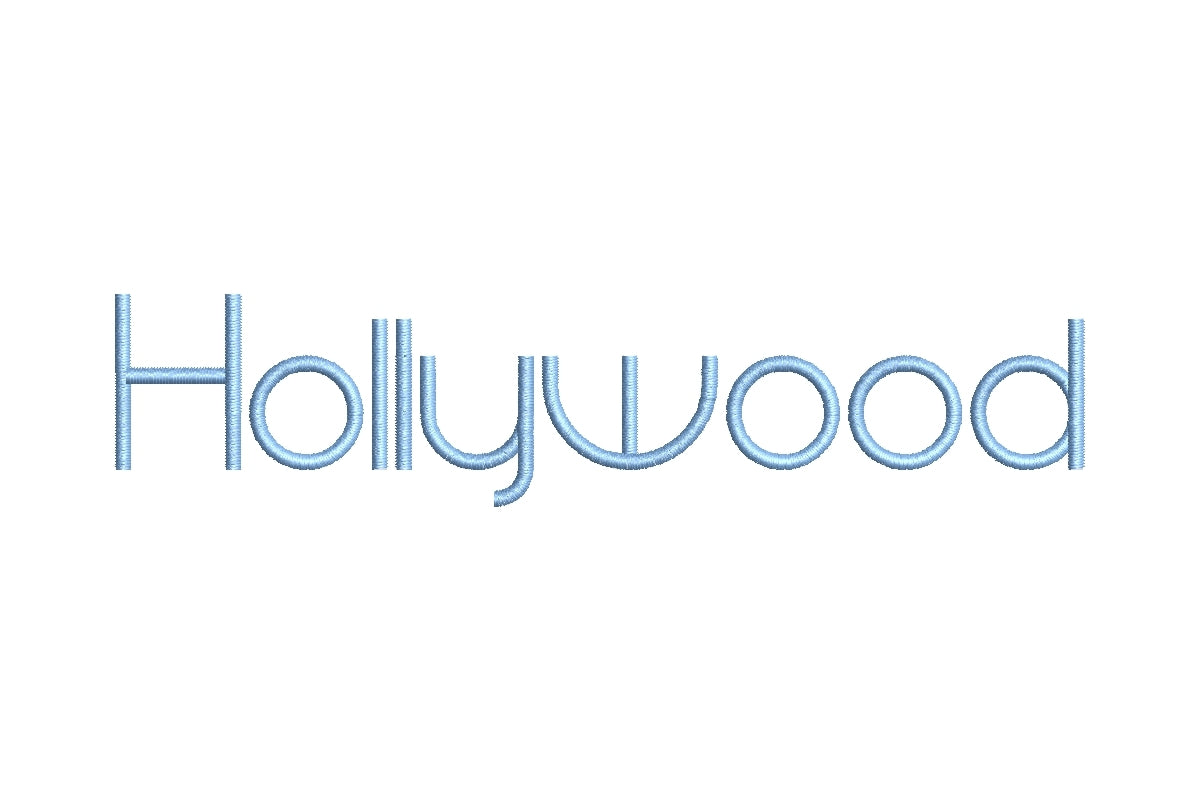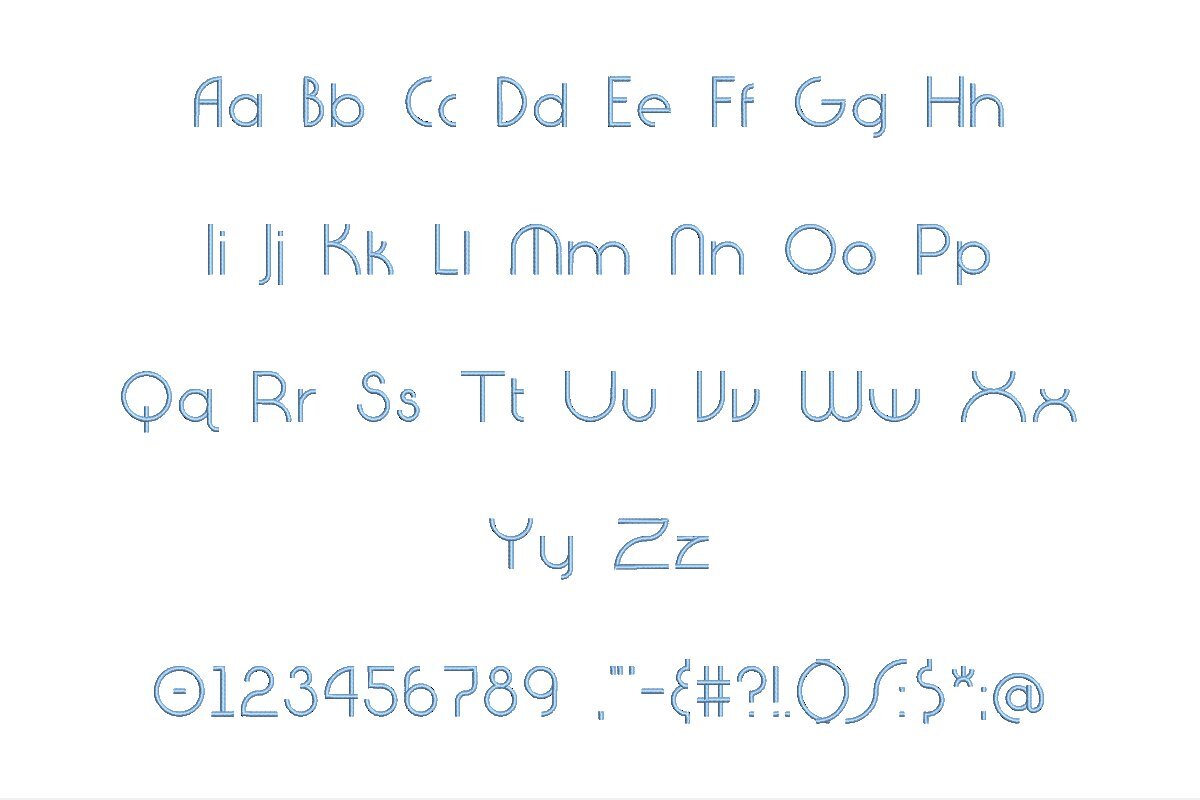
Introducing the Hollywood ESA Font, your star-studded path to embroidery brilliance. This font seamlessly connects with Wilcom Studio e4.5.6 and Hatch 3 versions and beyond, ensuring compatibility that shines. Whether you're a seasoned embroiderer or just starting your creative journey, Hollywood ESA simplifies digitizing and stitching. Its seamless integration with Wilcom Studio and Hatch guarantees hassle-free embroidery. Crafted with precision, this font adds a touch of glamour and sophistication to your designs. Elevate your embroidery projects with the Hollywood ESA Font, where every stitch sparkles like a star. Order now to create designs that shine as bright as Hollywood itself.